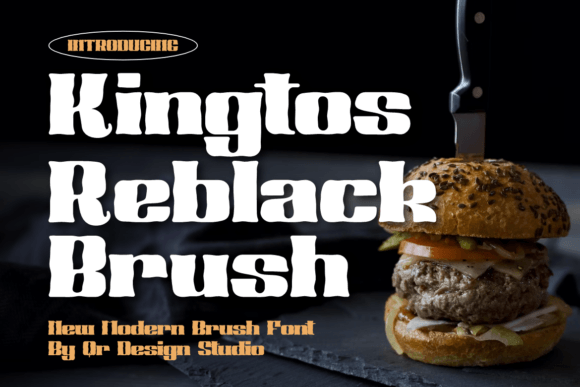
**Unveil Your Brand's Charisma with Kingtos Reblack: The Epitome of Bold and Stylish Fonts**
In a world where brands clamor for attention, your logo is your silent ambassador, silently communicating your values and captivating your audience. Kingtos Reblack, a bold and captivating display font, is the perfect weapon in your branding arsenal, a font that transforms your logo into a work of art.
**A Visual Symphony of Boldness and Style**
Kingtos Reblack is not just a font; it's a statement. Its thick, confident strokes exude an aura of strength and determination, while its slightly slanted design adds a touch of dynamism and intrigue. Whether you're crafting logos, designing digital masterpieces, creating captivating presentations, or adding a personal touch to greeting cards, Kingtos Reblack is your perfect companion.
**Forge an Unforgettable Brand Identity**
In a sea of brands, your logo is your beacon of recognition, your chance to leave an indelible mark on your audience's minds. Kingtos Reblack empowers you to create a logo that resonates with your brand's essence, a logo that captures attention and demands remembrance. Its bold presence ensures maximum visibility, while its stylish design leaves a lasting impression.
**Elevate Your Creative Projects to New Heights**
Kingtos Reblack is not confined to logos; it's a versatile font that elevates any creative project. Its bold strokes add a touch of drama to presentations, its slanted design brings life to digital designs, and its overall charisma transforms greeting cards into cherished keepsakes. With Kingtos Reblack, your creativity knows no bounds.
**Experience the Kingtos Reblack Difference**
Join the ranks of creative visionaries who have harnessed the power of Kingtos Reblack to elevate their brands and unleash their creativity. Discover the transformative impact of a font that speaks volumes, a font that turns your designs into captivating masterpieces. Embrace Kingtos Reblack today and embark on a journey of visual excellence.